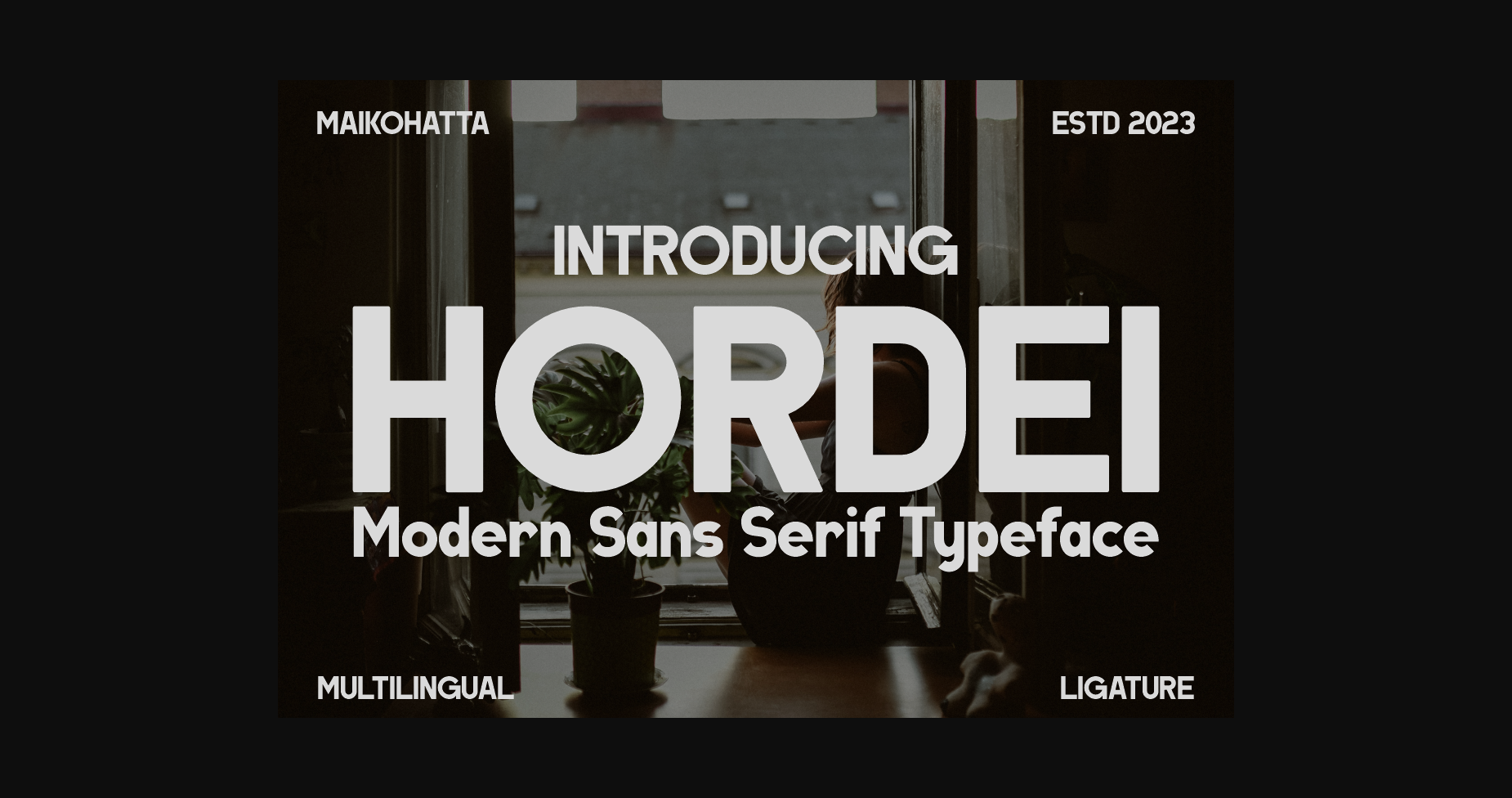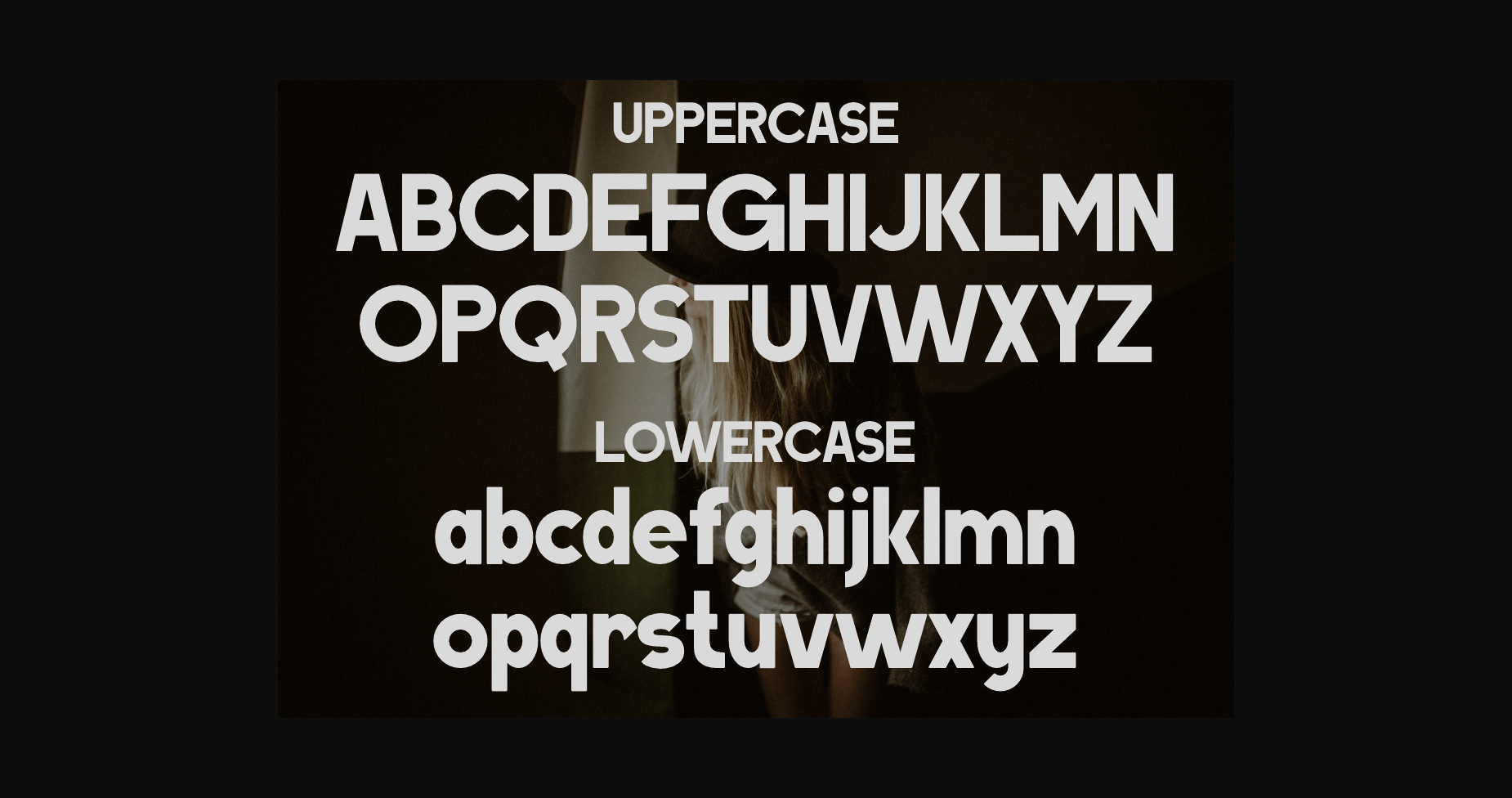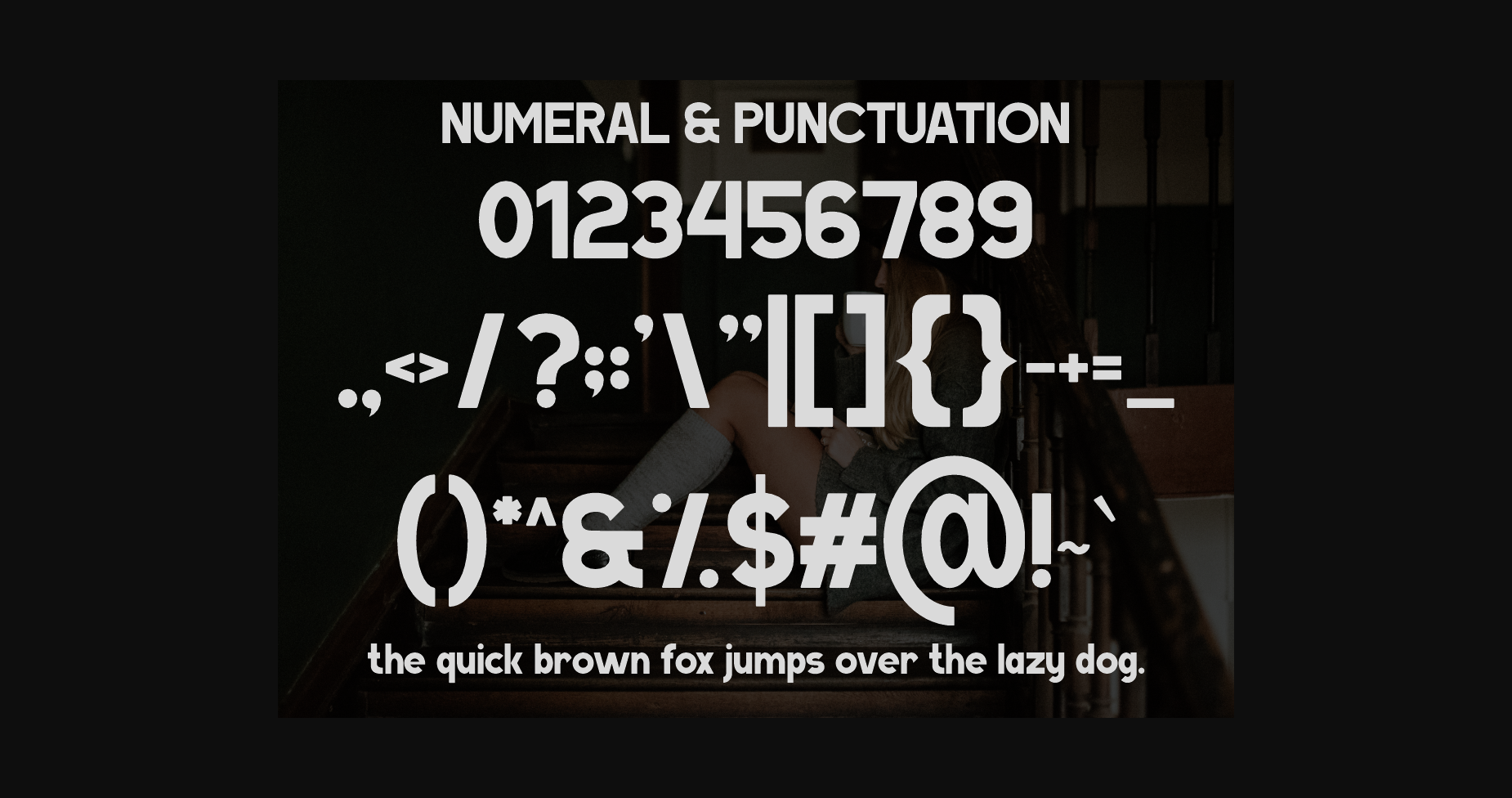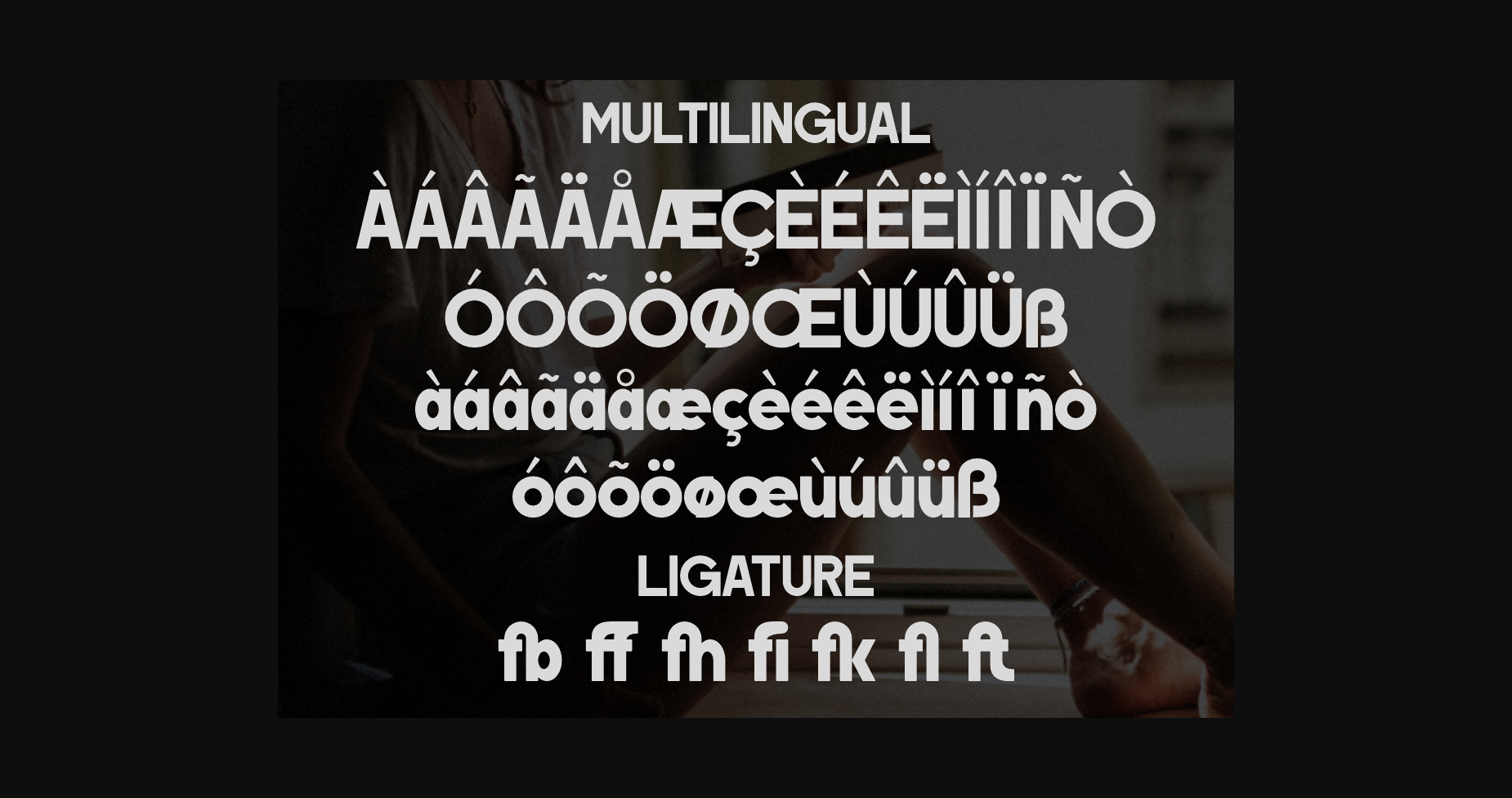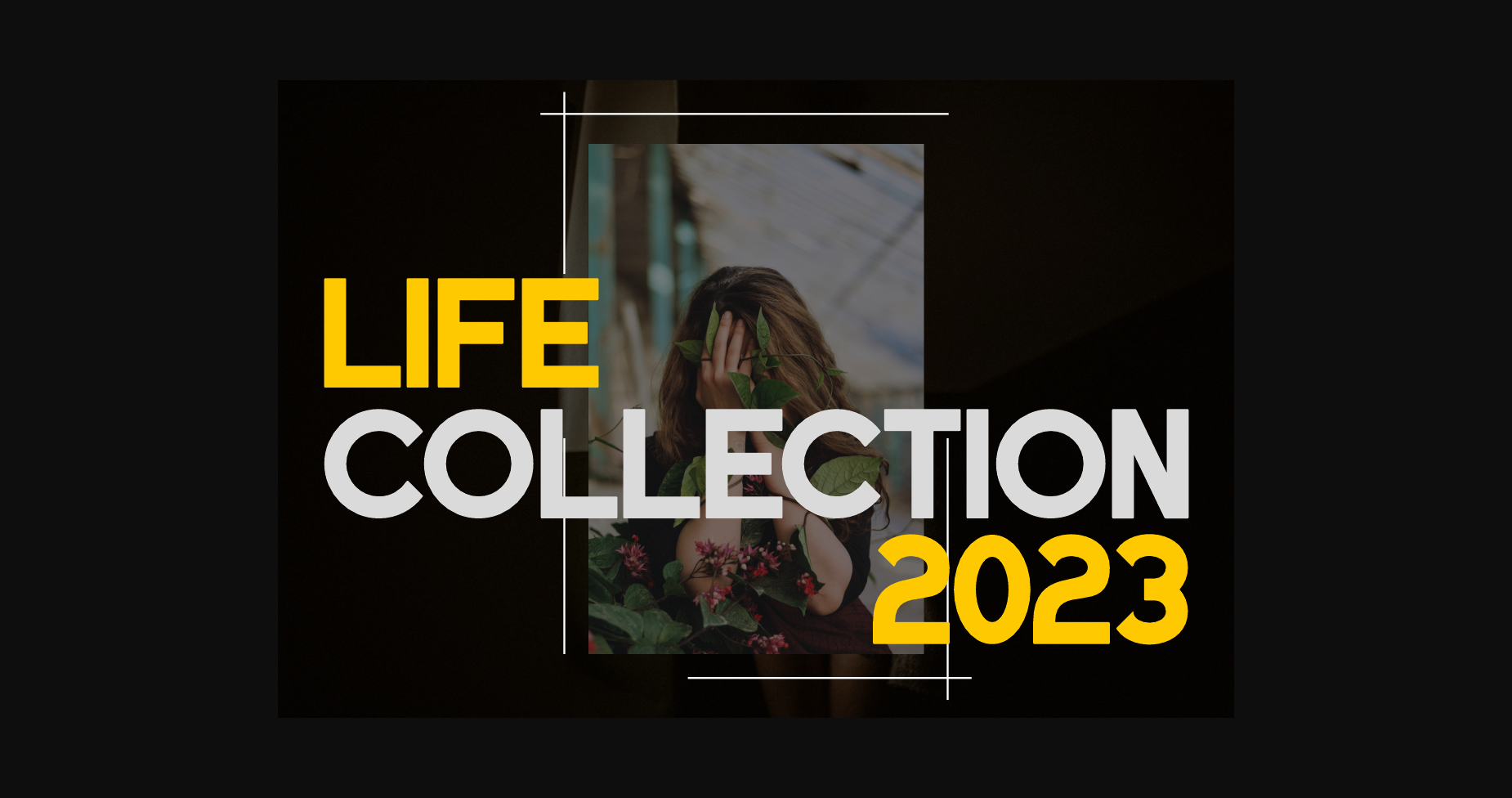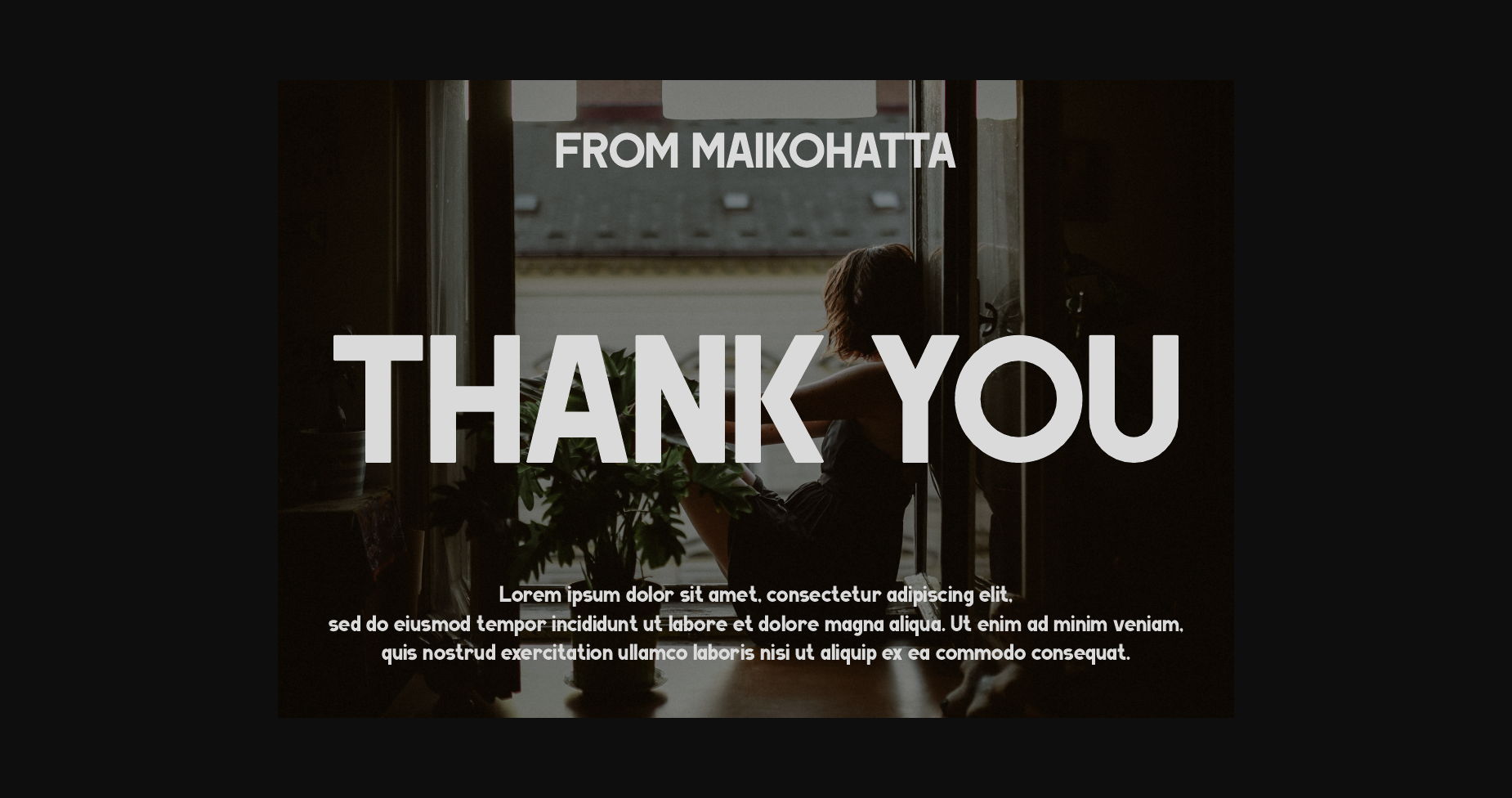
Hordei Font
About Hordei Font
Introducing our new product **Hordei Font**
**Hordei Font** – Modern Font is a bold and authentic display font. The font is suitable for any branding project like logo, template design, esport, and many more. outstanding in a wide range of contexts.